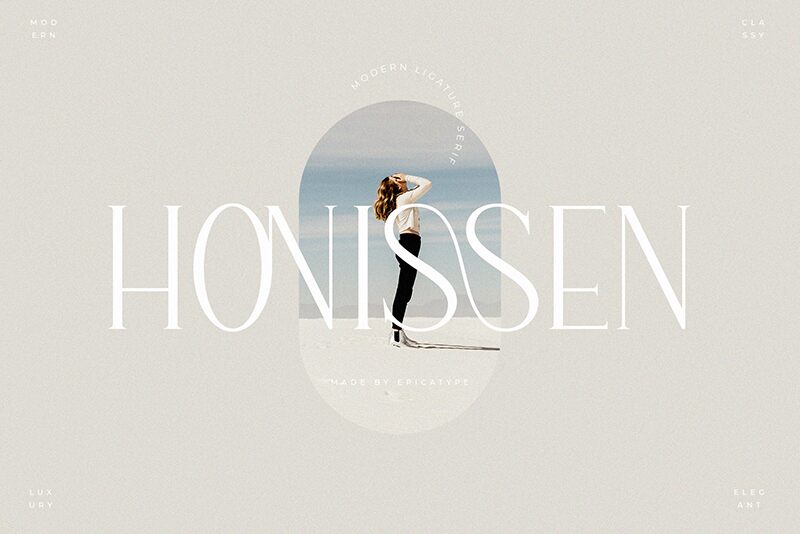
Introducing Honissen, a light and condensed serif font designed by Epicatype. Perfect for creating elegant logos and headlines, Honissen is the ideal choice for branding, web design, editorial design and more.
Honissen
Epicatype